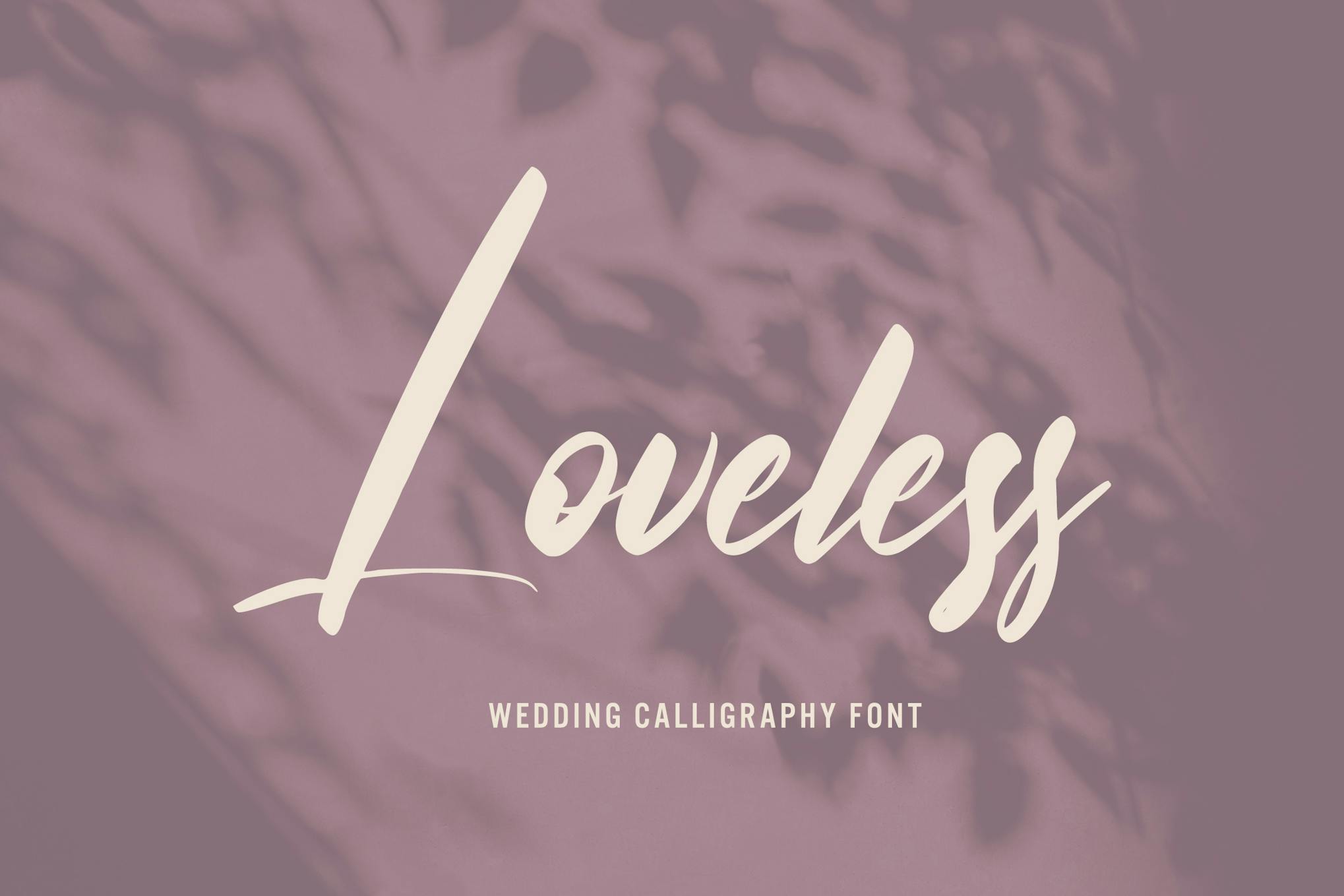
Loveless - Wedding Calligraphy Font
The Loveless - Wedding Calligraphy Font excels in minimalist design applications including simple wedding invitations, understated bridal branding, clean ceremony logos, minimalist product packaging, simple business cards, understated portfolios, clean greeting cards, minimalist social media graphics, simple event signage, and understated marketing materials. Its minimalist calligraphy style makes it perfect for projects requiring understated elegance that communicates simplicity and establishes clean brand positioning with audiences seeking minimalist wedding experiences and understated sophistication.
What makes the Loveless - Wedding Calligraphy Font truly exciting is its exceptional ability to capture the understated beauty and minimalist elegance of simple weddings through cleanly crafted letterforms. The font features flowing, minimalist strokes with understated flourishes and clean proportions that create a distinctly simple appearance. Each character displays remarkable attention to minimalist detail with clean curves, understated connections, and simple spacing that give text a beautifully minimalist, hand-lettered quality. The font's understated character and clean rhythm create an atmosphere of simple elegance while maintaining minimalist sophistication and wedding authenticity.
The Loveless - Wedding Calligraphy Font family typically includes regular weight with extensive character coverage, featuring uppercase and lowercase letters, numerals, punctuation marks, and international characters. The typeface often incorporates stylistic alternates, contextual ligatures, and minimalist swashes that enhance its signature simplicity. These additional elements provide designers with creative flexibility to customize text appearance and achieve more natural-looking understated handwriting that reflects the font's minimalist and clean character.
This minimalist signature font distinguishes itself through its remarkable balance of understated charm and sophisticated elegance. Unlike ornate or complex fonts that lack minimalist appeal, Loveless - Wedding Calligraphy Font embraces the power of simple design to create clean connections with minimalist wedding audiences. The font's understated character makes it essential for minimalist wedding planners, simple brands, and clean celebration businesses where creating understated wedding experiences and minimalist memories is fundamental to success in simple wedding markets.